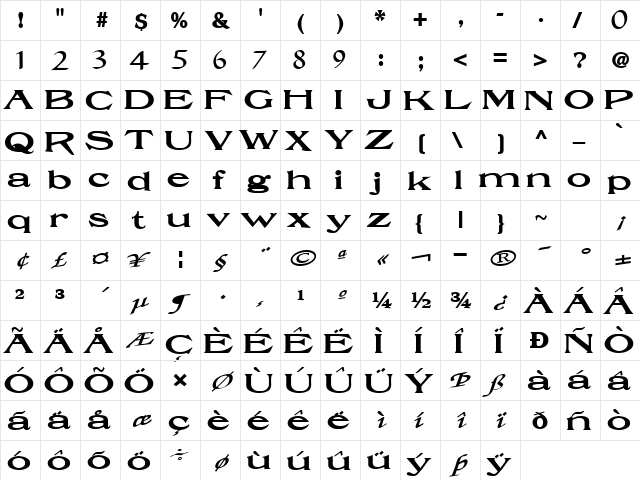
StyleBrandFinal61 Bold
Design Context for StyleBrandFinal61 Typeface
StyleBrandFinal61 takes a measured approach to typography — its balanced proportions and neutral character make it a reliable workhorse for both digital and print work. The heavy weight commands attention and anchors typographic hierarchies.